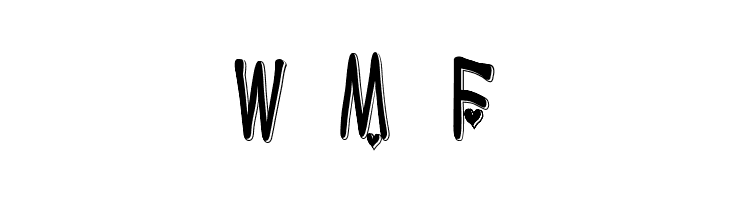
A bold, decorative font with vintage and art deco influences.
A bold, playful font with thick, rounded characters and a cartoon-like appearance.
A playful, hand-drawn font with dynamic and irregular letterforms.
A bold, rugged font with jagged edges and a distressed appearance, ideal for impactful designs.
An ornate, decorative font with intricate floral patterns in each letter.
A bold, playful font with high contrast and rounded shapes, perfect for decorative use.
A bold, geometric font with a strong, athletic appearance.
A bold, Gothic-inspired font with a modern yet classic appeal.
A bold, distressed font with a rugged, grunge appearance.
A bold, rounded font with smooth curves and a modern, friendly appearance.
A modern serif font with clean lines and balanced proportions.
A playful, casual handwritten font with smooth, flowing strokes.